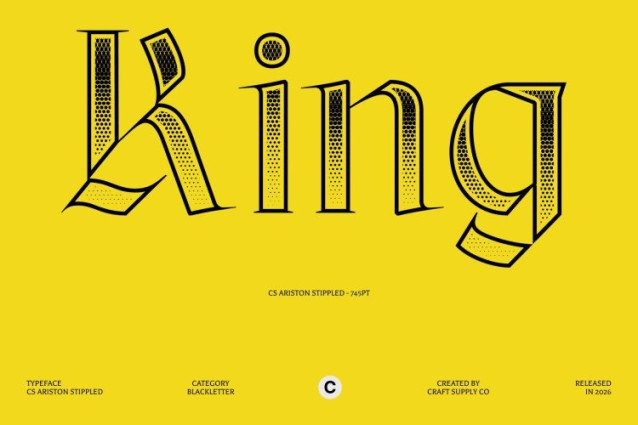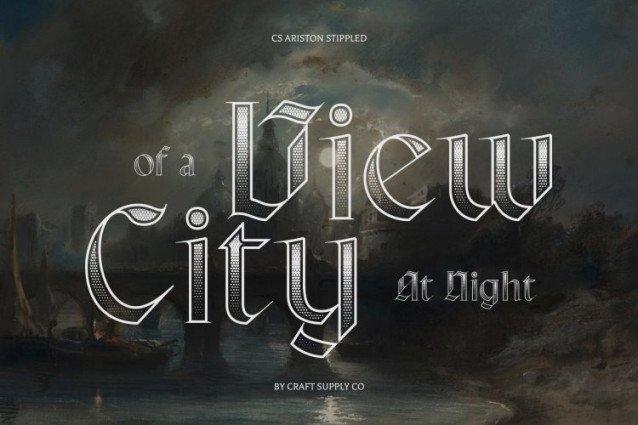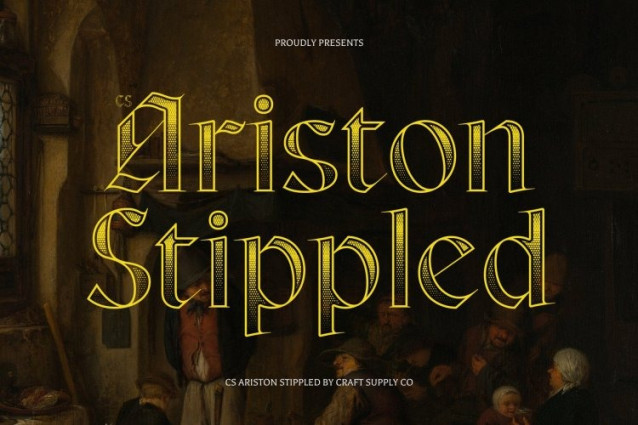
CS Ariston Stippled Font
CS Ariston Stippled Font This is a display serif font that embodies the timeless elegance of Blackletter style, now enhanced with a dense stippled texture. Inspired by traditional ink-dot and stippling illustration techniques, the dotwork detailing adds depth, richness, and a handcrafted vintage quality to its intricate letterforms. The result is a typeface that feels historic, dramatic, and visually refined.
Bold Lines with Textured Dramatic Impact
Defined by strong, striking strokes and elaborate detailing, commands attention with authority. The stippled surface softens and enriches the bold forms, creating a layered visual effect that enhances its ornamental structure. This balance between robustness and texture makes it ideal for designs that require both power and sophistication.
Historical Elegance with Artistic Depth
Rooted in Gothic and medieval traditions, evokes a sense of legacy, prestige, and ceremonial elegance. The stippled treatment reinforces its engraved, heritage-inspired aesthetic bringing warmth and authenticity while maintaining a commanding presence.
Perfect for Luxury and Themed Projects
Whether for luxury branding, formal invitations, themed events, editorial headlines, or heritage-inspired designs, offers a harmonious blend of tradition and bold expression. Its distinctive Blackletter character and textured finish ensure every composition carries classic sophistication and unforgettable impact.